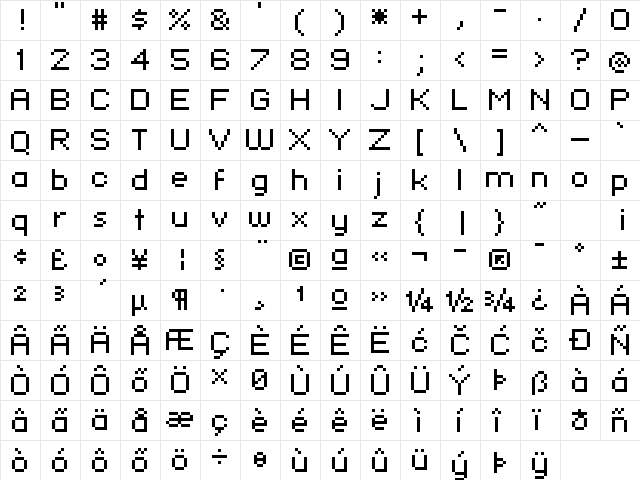
standard 07_53 Regular Font Preview
standard 07_53 Regular
standard 07_53 Regular Font Details
Design Context for standard 07_53 Typeface
standard 07_53 is a composed and adaptable typeface that performs quietly and consistently across a wide range of design contexts.